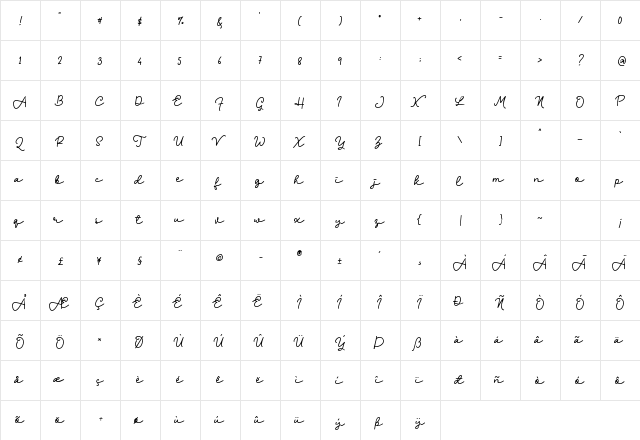
Bravo Charlie Script -Demo- Regular
| Designer | Abo Daniel 2019 |
Design Context for Bravo Charlie Script -Demo- Typeface
Bravo Charlie Script -Demo- flows with the natural rhythm of handwritten lettering, making it ideal for designs that call for warmth and personal expression.
Font Pairing: Combine Bravo Charlie Script -Demo- with a simple geometric sans for maximum contrast — the tension between flowing curves and clean structure is a classic typographic pairing.
Pro Tip: Pair Bravo Charlie Script -Demo- with a clean sans-serif for supporting text. The contrast between fluid script and geometric structure creates an elegant typographic hierarchy.